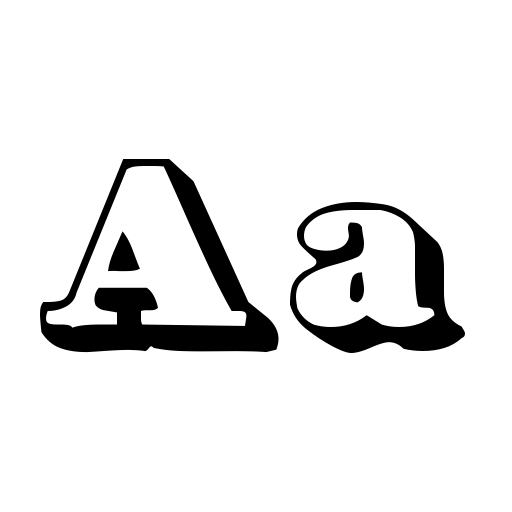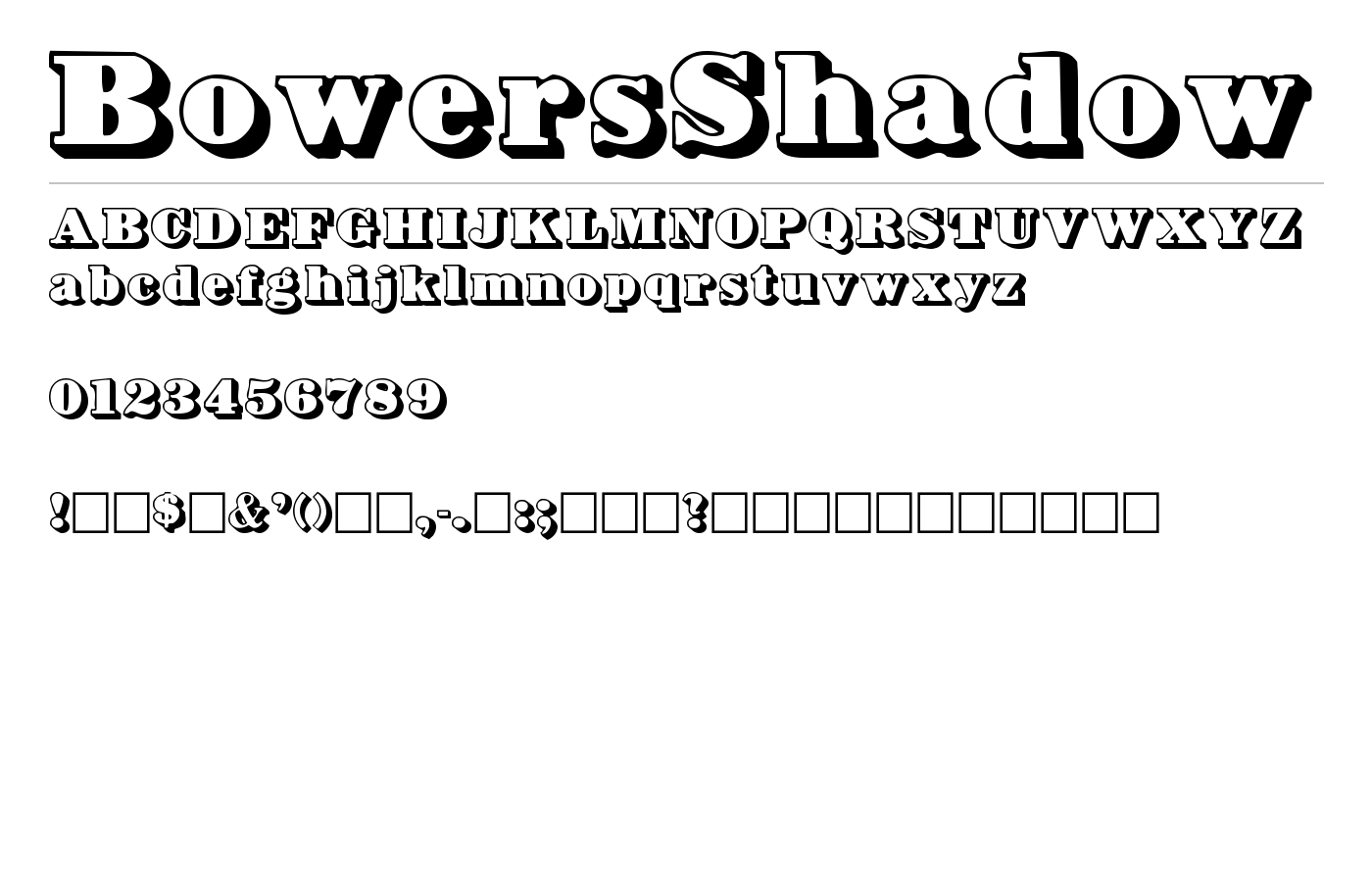
BowersShadow is a bold slab serif font with a strong presence, characterized by its thick, blocky letterforms and distinctive shadow effect that adds depth and vintage appeal. This font combines sturdy, bracketed serifs with high contrast and a playful yet robust personality, making it an excellent choice for eye-catching headlines, posters, and branding that seeks a retro or western-inspired vibe. Its solid, structured style works well in designs needing a dramatic, standout look with a touch of classic charm.
BowersShadow Font